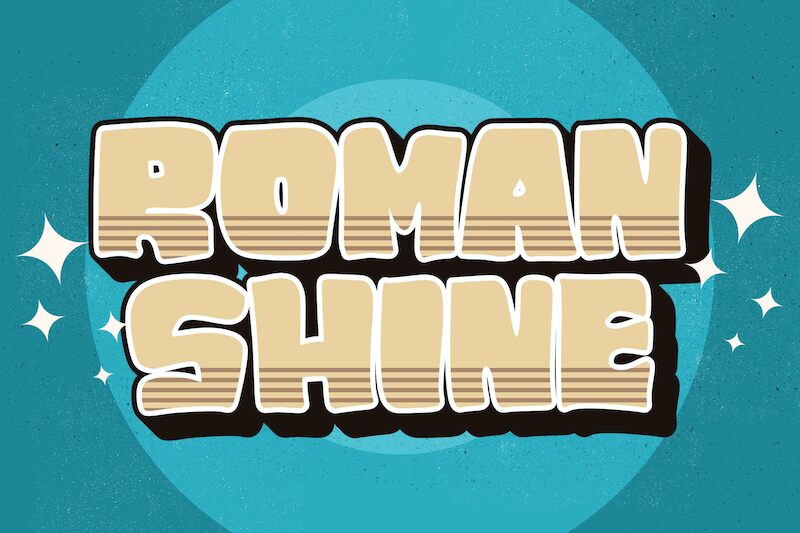
ROMAN SHINE
Introducing Roman Shine, a bold and wide display font designed by Virgiawan Listanto. With an eye-catching cartoon style, it's perfect for creating attention-grabbing headlines, logos, posters, or any other project requiring a unique and stylish look.